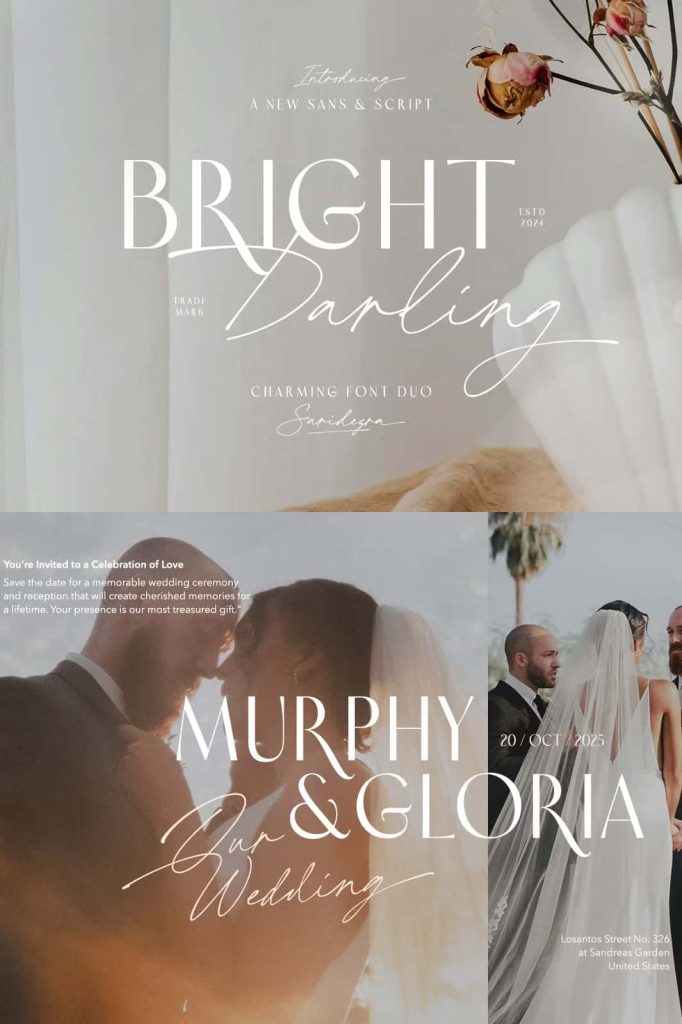
Bright Darling Font Duo: Elegant Versatility for Modern Design
A Perfect Balance of Style and Function
Bright Darling is a beautifully crafted font duo that delivers both elegance and flexibility in one cohesive package. It combines two distinct styles—a clean, modern all-caps sans serif and a flowing, signature-style script—allowing designers to create visually compelling compositions with ease. This pairing is carefully designed to complement each other, giving your work a polished and professional look without requiring multiple font combinations.
The modern sans serif font provides structure, clarity, and readability. Its refined letterforms make it ideal for headlines, titles, and branding elements that demand attention. Meanwhile, the signature script introduces a personal, handwritten touch that adds warmth and sophistication. Together, they form a dynamic contrast that enhances any design project.
Designed for Creative Freedom
Bright Darling empowers you to explore a wide range of creative possibilities. Whether you are building a brand identity or designing promotional materials, this font duo adapts effortlessly to your needs. The clean sans serif ensures your message remains clear and impactful, while the script font injects personality and charm.
You can use the sans serif font for strong, bold statements and pair it with the script for accents, highlights, or signatures. This combination helps create hierarchy and visual interest, making your designs more engaging and professional.
Key Features
- Modern all-caps sans serif for clean and structured layouts
- Elegant signature script for a natural handwritten feel
- Perfect pairing for contrast and visual harmony
- Highly versatile for both digital and print design
- Ideal for both minimal and decorative styles
Ideal for Multiple Design Applications
Bright Darling stands out because of its adaptability across various design contexts. Whether you are working on personal or commercial projects, this font duo provides the tools you need to create stunning visuals.
For branding projects, Bright Darling helps establish a memorable identity. The sans serif font communicates professionalism and clarity, while the script adds a distinctive and personal signature. This makes it an excellent choice for logos, business cards, and brand guidelines.
In the world of wedding and event design, Bright Darling truly shines. The script font brings elegance and romance, making it perfect for invitations, save-the-date cards, and signage. Paired with the clean sans serif, it ensures readability while maintaining a sophisticated aesthetic.
You can also use this font duo for social media graphics, quotes, packaging, and marketing materials. Its versatility allows you to maintain a consistent visual style across different platforms while keeping your designs fresh and engaging.
Create Professional and Eye-Catching Designs
Bright Darling helps you elevate your design work by simplifying the process of font pairing. Instead of searching for complementary fonts, you get a ready-made combination that works seamlessly together. This not only saves time but also ensures consistency in your projects.
The font duo performs well in both large and small formats. Use the sans serif for bold headlines and the script for elegant details. Adjust spacing and layout to create balanced compositions that capture attention and communicate your message effectively.
Why Choose Bright Darling
Choosing Bright Darling means choosing efficiency, elegance, and versatility. It allows you to design with confidence, knowing that your typography will look cohesive and professional. Whether you are a graphic designer, business owner, or creative enthusiast, this font duo provides a reliable solution for a wide range of design needs.
With its modern aesthetic and timeless appeal, Bright Darling continues to be a valuable asset for anyone looking to create impactful and stylish designs.